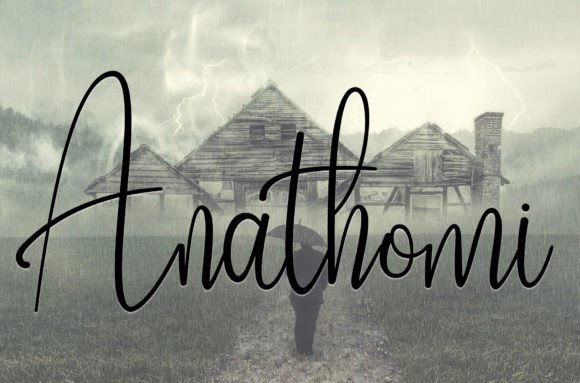
Introducing Anathomi Font: The Perfect Handwritten Script for Creative Projects
Are you a designer, crafty person, or simply someone who loves to add a personal touch to their projects? Look no further than Anathomi Font, a beautiful handwritten script that’s perfect for a wide range of creative endeavors. From product packaging and branding projects to magazines, social media posts, weddings, and more, Anathomi Font is the ideal choice for anyone looking to add a touch of elegance and sophistication to their work.
What Makes Anathomi Font So Special?
Anathomi Font is a carefully crafted handwritten script that’s designed to be both beautiful and versatile. Its unique, flowing lines and delicate curves make it perfect for adding a touch of whimsy and romance to any project. Whether you’re looking to create a stunning brand identity, design a gorgeous wedding invitation, or simply add some personality to your social media posts, Anathomi Font is the perfect choice.
Anathomi Font is incredibly versatile, making it perfect for a wide range of projects and applications. Here are just a few ideas to get you started:
- Product Packaging: Add a touch of elegance to your product packaging with Anathomi Font. Whether you’re selling handmade crafts, gourmet foods, or luxury goods, this beautiful font is sure to make your products stand out.
- Branding Projects: Create a stunning brand identity with Anathomi Font. Use it to design logos, business cards, and other marketing materials that reflect your brand’s unique personality and style.
- Magazines and Editorial Content: Add a touch of sophistication to your magazine or editorial content with Anathomi Font. Use it to create beautiful headlines, subheadings, and body copy that will engage and inspire your readers.
- Social Media Posts: Make your social media posts stand out with Anathomi Font. Use it to create beautiful graphics, quotes, and other content that will help you connect with your followers and build your brand.
- Weddings and Special Events: Create stunning wedding invitations, programs, and other materials with Anathomi Font. This beautiful font is perfect for adding a touch of romance and elegance to any special event.
Why Choose Anathomi Font?
So why choose Anathomi Font for your next project? Here are just a few reasons why this beautiful handwritten script is the perfect choice:
- Unique and Eye-Catching: Anathomi Font is a unique and eye-catching script that’s sure to make your projects stand out. Its delicate curves and flowing lines make it perfect for adding a touch of personality and style to any project.
- Versatile: Anathomi Font is incredibly versatile, making it perfect for a wide range of projects and applications. Use it to create everything from product packaging and branding materials to social media posts and wedding invitations.
- Elegant and Sophisticated: Anathomi Font is an elegant and sophisticated script that’s perfect for adding a touch of luxury and refinement to any project. Whether you’re designing for a high-end brand or simply want to add some personality to your social media posts, this beautiful font is the perfect choice.
How to Use Anathomi Font
- Pair it with Other Fonts: Anathomi Font pairs beautifully with other fonts, making it perfect for creating stunning combinations and contrasts. Try pairing it with a bold sans-serif font for a striking contrast, or with a delicate script font for a more romantic look.
- Experiment with Colors: Anathomi Font looks beautiful in a wide range of colors, from soft pastels to rich jewel tones. Experiment with different colors and combinations to find the perfect look for your project.
- Play with Size and Style: Anathomi Font is perfect for use in a wide range of sizes and styles, from large headlines to small body copy. Experiment with different sizes and styles to find the perfect look for your project.
Whether you’re a designer, crafty person, or simply someone who loves to add a personal touch to their projects, Anathomi Font is the perfect choice. With its unique and eye-catching design, versatility, and elegant and sophisticated style, this beautiful handwritten script is sure to make your projects stand out. So why wait? Download Anathomi Font today and start creating your own stunning projects!